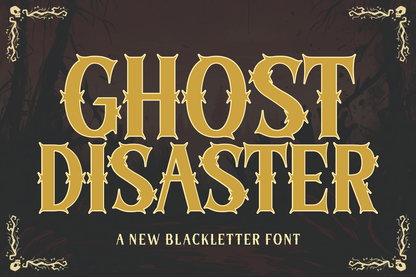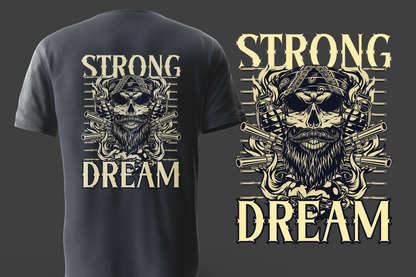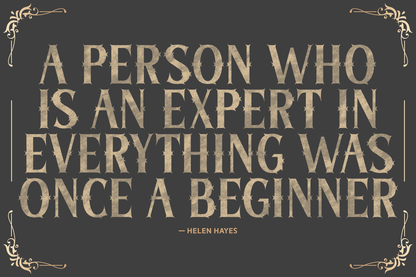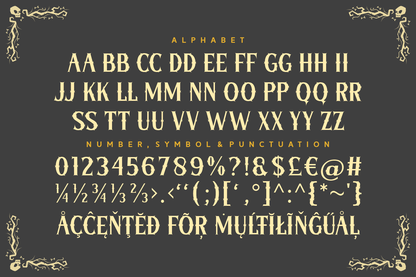
Ghost Disaster is a horror-themed blackletter font that combines supernatural style with gritty vintage flair. With spiked accents and eerie curves, it's ideal for Halloween posters, haunted attractions, and metal band art. This typeface channels chaos, spirits, and spine-chilling energy.